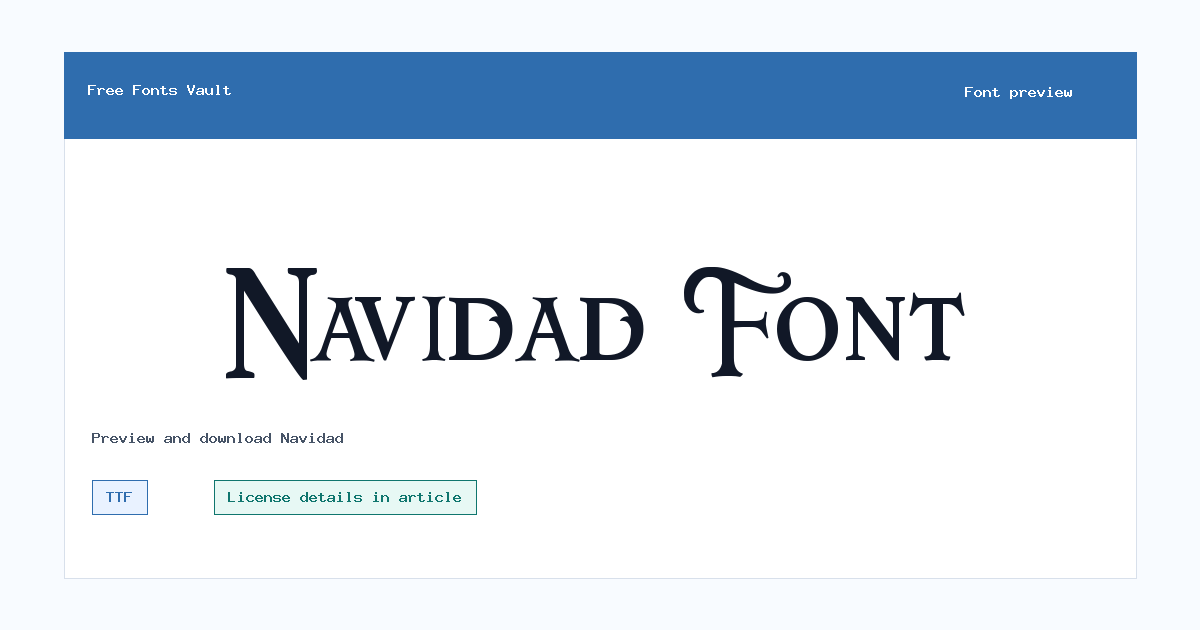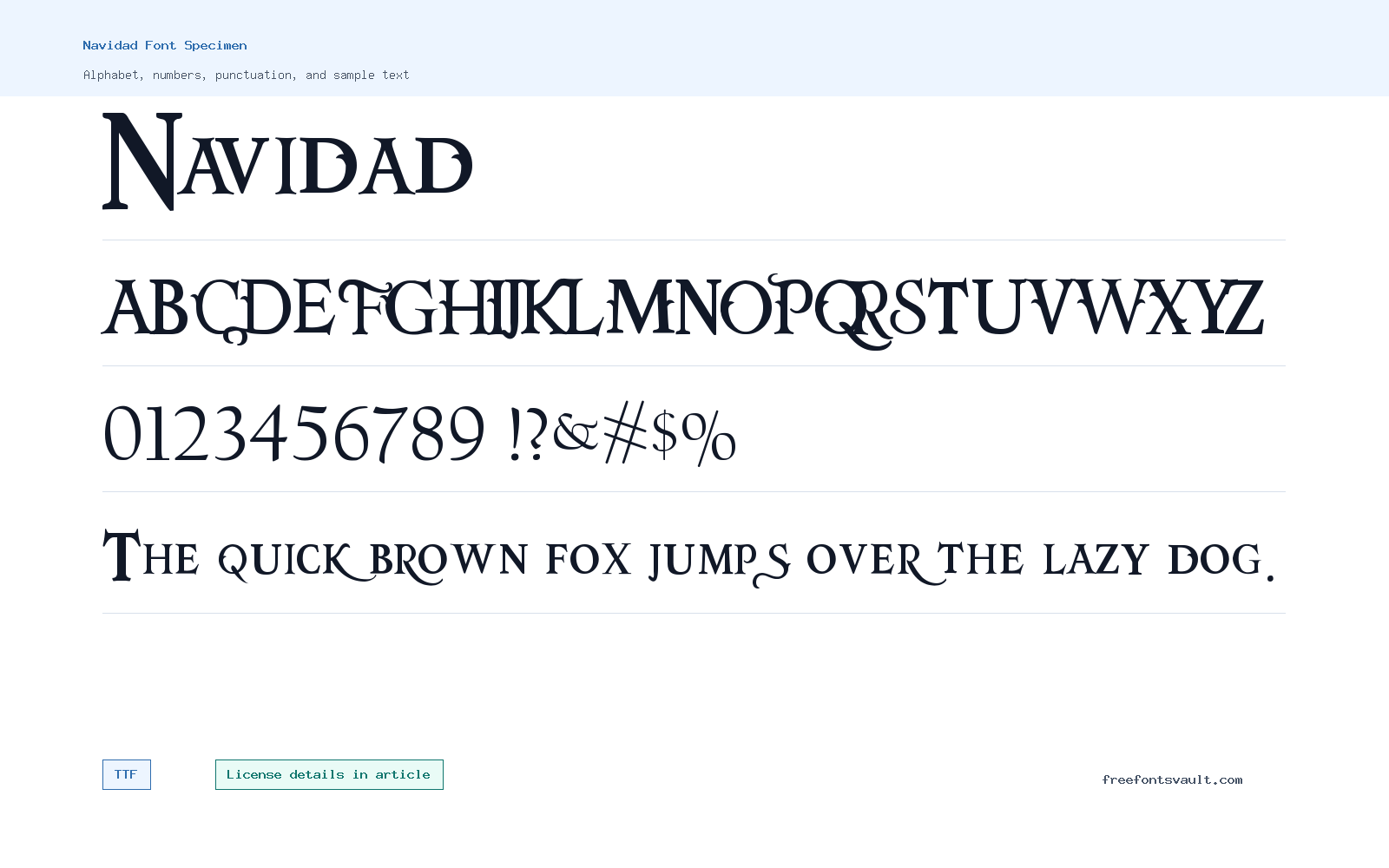
Navidad
Navidad font.
Navidad is a single-style TTF font with a regular weight. Its name makes it easy to try for festive text, but the right fit should come from the preview: type your real words and judge the spacing, tone, and readability before downloading.
About Navidad Font
The family includes one regular TrueType file, so it is simple to install and test. Use Navidad first for short text: greeting cards, poster titles, holiday labels, invitation lines, stickers, social posts, thumbnails, and decorative headings. A single-weight font can be useful when the design only needs one clear accent, but it will not give you a full typographic system with bold, italic, or lighter styles.
Navidad can also be tested outside holiday work when you need a friendly display voice. Short names, small event graphics, and handmade-style printables are good preview cases. The important rule is to test the final wording, because display fonts often look strong in one word and less balanced once the phrase becomes longer.
- Best for compact text rather than long paragraphs
- Works better when paired with a clean reading font
- Holiday greetings, cards, invitations, and seasonal posters
- Labels, stickers, social graphics, and printable crafts
- Short title text where a decorative voice is enough
- Personal mockups that need a warm display style
Set the preview at the size you expect to use, then compare a short title with a longer phrase. If the lettering feels crowded, add spacing or reduce the number of words. Keep supporting copy in a simpler font so Navidad can do the decorative work without hurting readability.
What is Navidad best for?
It is best for short decorative text such as cards, greetings, labels, posters, and social graphics.